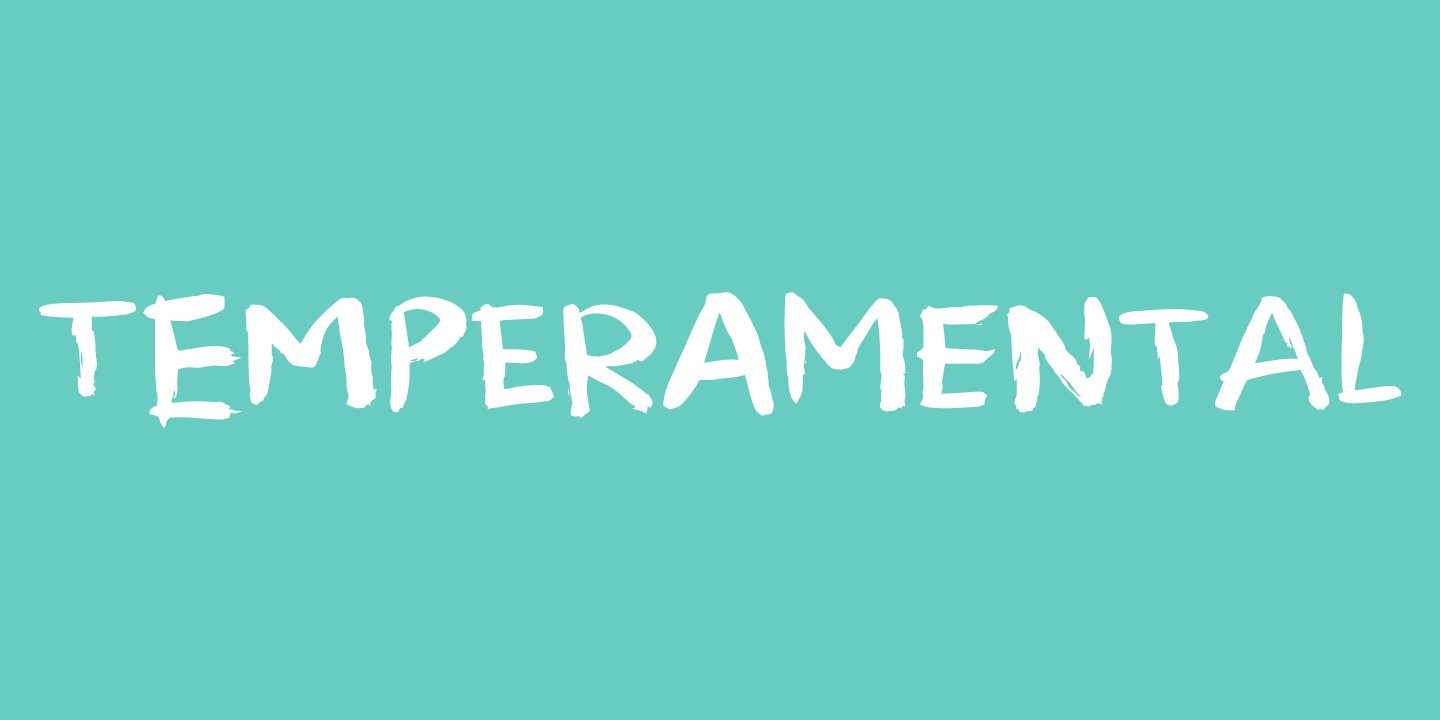
Temperamental Font is ideal for emotional artistic projects, moody creative campaigns, volatile entertainment branding, passionate music industry graphics, dramatic theater posters, unpredictable art exhibitions, and expressive personality-driven designs.
What makes Temperamental Font exciting is its emotional volatility and artistic moodiness, featuring unpredictable letterforms that capture the essence of passionate expression while delivering dynamic visual intensity and authentic emotional authenticity.
The Temperamental Font family includes Light, Regular, Medium, Bold, and Heavy weights, plus moody variants and emotional alternates that enhance the font's volatile character and passionate possibilities.
Temperamental Font Free Download embodies the raw intensity of emotional expression and the unpredictable beauty of artistic temperament through dynamic typography design. This passionate typeface captures the volatile nature of creative genius and the emotional depth of artistic souls, creating an expressive visual language that speaks to artists and creative professionals who value authentic emotion, passionate expression, and the compelling appeal of artistic temperament. The font's volatile character and emotional appearance make it perfect for artistic venues, creative studios, and entertainment organizations that want to communicate intensity, passion, and the captivating appeal of emotional artistic expression.
Creative studios and artistic organizations consistently choose Temperamental Font for projects that require authentic emotional credibility and passionate visual impact. The typeface's volatile construction and moody personality make it exceptionally effective for art galleries, music venues, and theatrical companies where emotional expression and artistic temperament are paramount. Each character has been designed with emotional precision to ensure maximum intensity across all artistic applications and creative environments.
The artistic advantages of Temperamental Font extend beyond its emotional appeal to include practical functionality for diverse creative applications. The font maintains excellent readability in dramatic settings while delivering the distinctive character that creates memorable emotional experiences and connects with audiences seeking authentic artistic passion. Its comprehensive character set includes emotional symbols and expressive elements that make it particularly suitable for artistic documentation and passionate communication.
Art galleries, music venues, and theatrical companies frequently incorporate Temperamental Font into their brand identity systems because of its ability to instantly convey emotional authenticity and artistic sophistication. The typeface's volatile aesthetic helps establish credibility in competitive creative markets while appealing to audiences who value artistic passion, emotional expression, and the intense experiences that come from authentic creative temperament and passionate artistic expression.